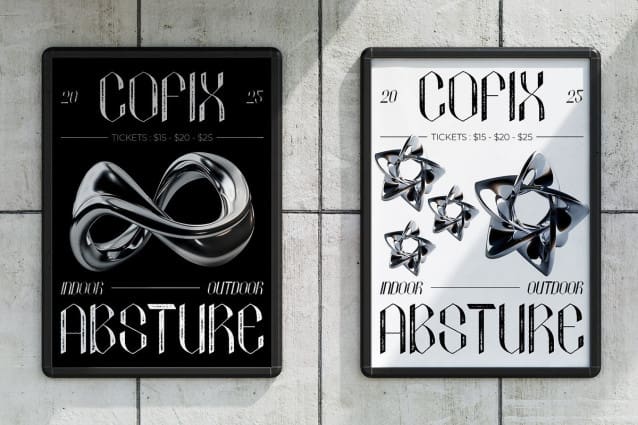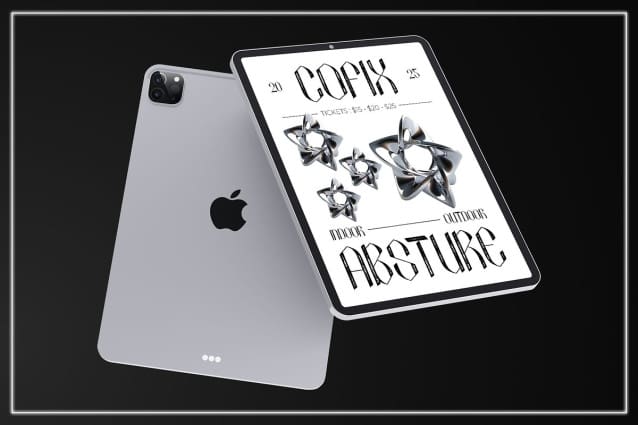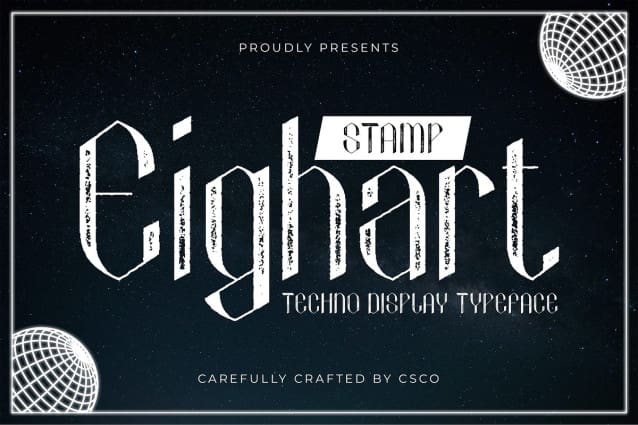
Eighart Stamp Font
Eighart Stamp Font is a modern display sans-serif font that merges sleek, futuristic letterforms with a distinctive stamp effect. The font’s clean, geometric shapes evoke a high-tech vibe, seamlessly integrating technological and contemporary elements for a cutting-edge appearance.
Distinctive Stamp Effect The unique stamp effect introduces a grunge-like texture to Eighart Stamp, adding a rugged, worn appearance to its otherwise sleek design. This textured detail contrasts with the font’s high-tech aesthetic, infusing it with a touch of raw, edgy character.
Ideal for Tech Branding and Contemporary Visuals Perfect for tech-oriented branding and contemporary design projects, Eighart Stamp offers a blend of modern sophistication and gritty charm. Its combination of futuristic forms and textured detail makes it versatile for standout visuals that require both elegance and a hint of ruggedness.
Elevate Your Design with Modern Edge Enhance your designs with Eighart Stamp, where technological elegance meets rugged texture. This font provides a visually striking and sophisticated look, making it ideal for projects that need to balance contemporary aesthetics with a distinctive, gritty touch.